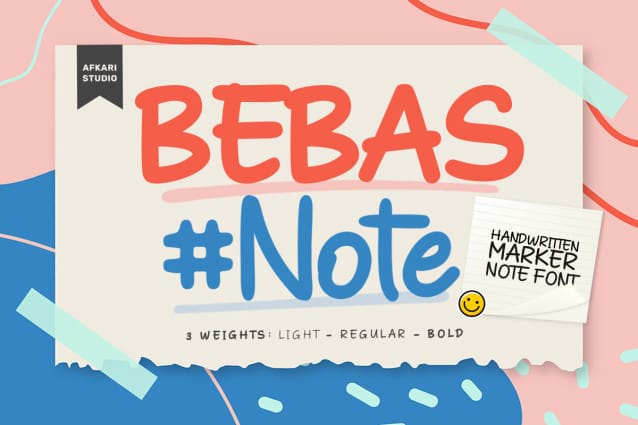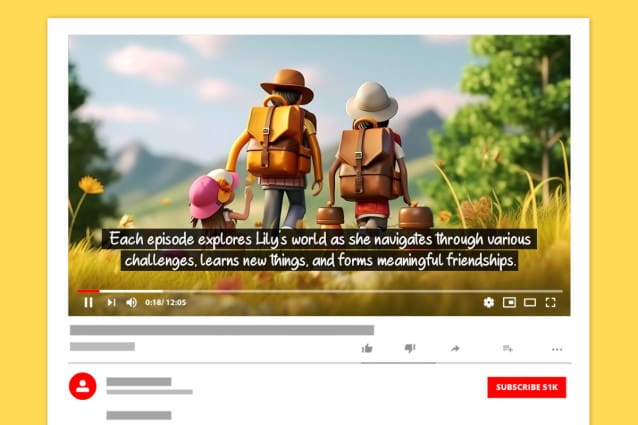
Bebas Note Font
Bebas Note Font – A Handwritten Marker Font, skillfully designed to bring a touch of personalized charm to your projects. With its distinctive and adaptable style, Bebas Note is perfect for adding a genuine hand-drawn feel to any design, making it a versatile asset for creatives.
At its heart, Bebas Note captures the essence of handwritten notes, reflecting the unique imperfections and nuances that make each character special. Its smooth flow and natural elegance make it an excellent choice for a wide range of graphic projects, ensuring its applicability across various media and formats.
Bebas Note – Handwritten Marker Note Font
Designer Name: afkaristudio